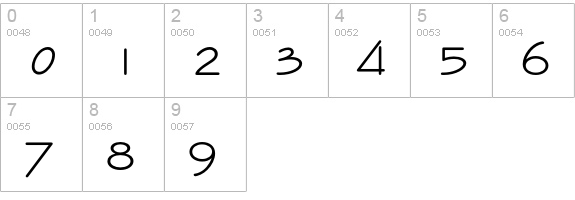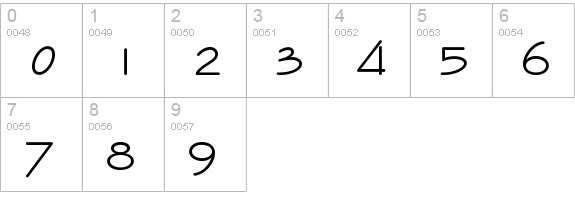
Sansibar Font Details
Sansibar is a beautifully designed font that combines elegance with a touch of modernity. Its clean lines and smooth curves make it perfect for a wide range of projects, from elegant wedding invitations to sleek corporate branding. Sansibar is a versatile typeface that can adapt to any design concept, making it a must-have for designers and creatives. What sets Sansibar apart is its unique ability to convey a sense of sophistication while still maintaining a contemporary edge. The letterforms are meticulously crafted, with each curve and angle carefully considered to create a harmonious balance. This attention to detail is what makes Sansibar stand out from the crowd. One of the best things about Sansibar is that it is free. Yes, you read that right! This amazing font is freely available to download at FontsMarket.com. Whether you're a professional designer or just someone who loves experimenting with typography, Sansibar is the perfect addition to your font library. With its wide range of weights and styles, Sansibar offers endless possibilities for creative expression. From thin and delicate to bold and commanding, you can find the perfect variation to suit your project's needs. Its versatility is further enhanced by its extensive character set, which includes multilingual support. Sansibar is not just a font; it's a statement. It's a bold choice that will make your designs shine and leave a lasting impression on your audience. So why wait? Head over to FontsMarket.com and download Sansibar today. It's time to take your designs to the next level with this stunning and freely available font.